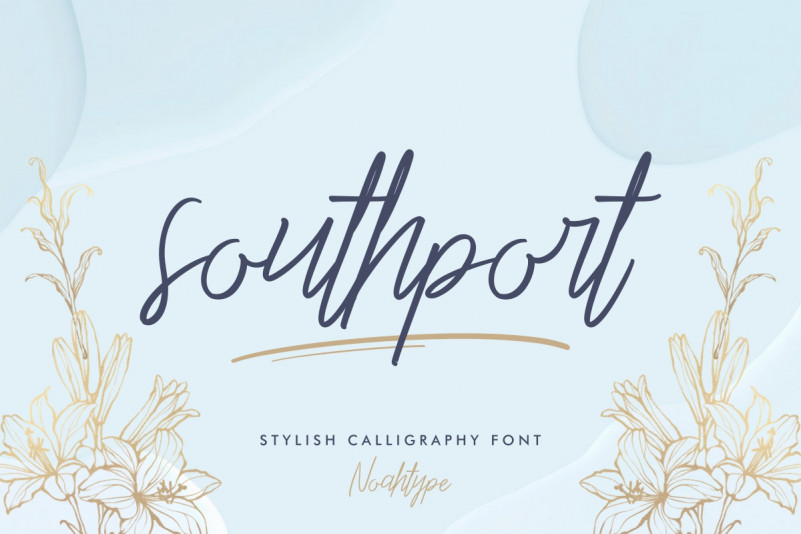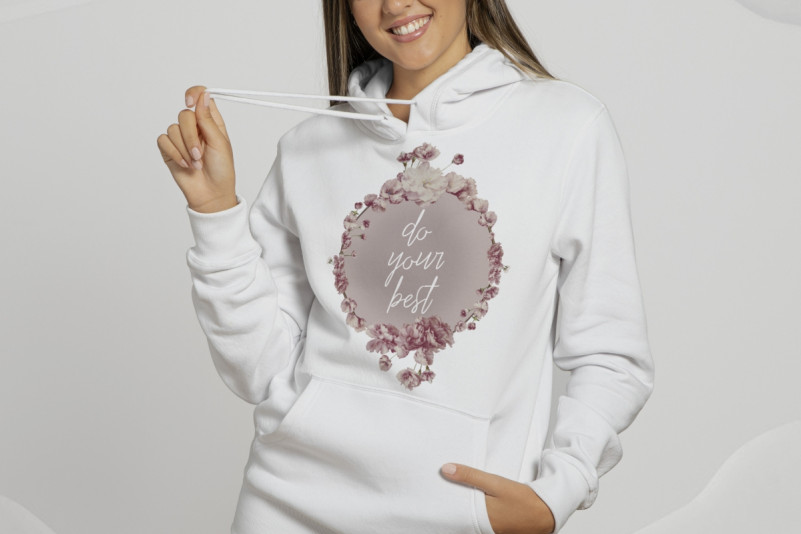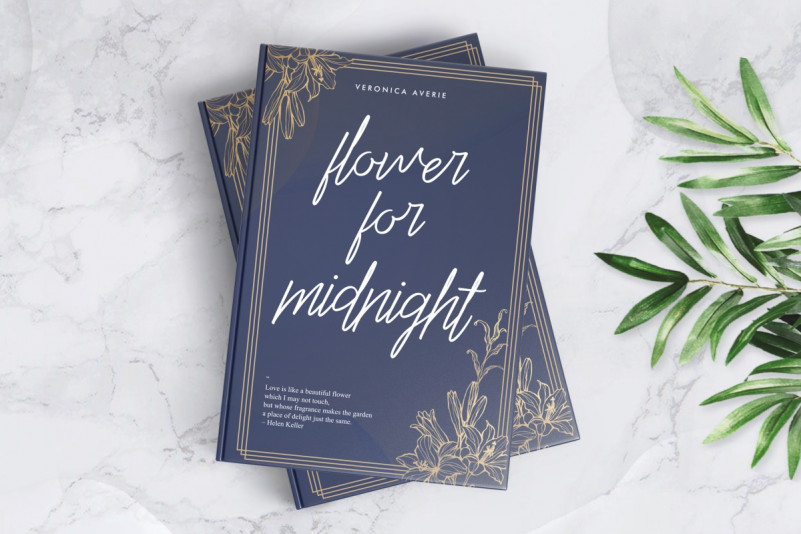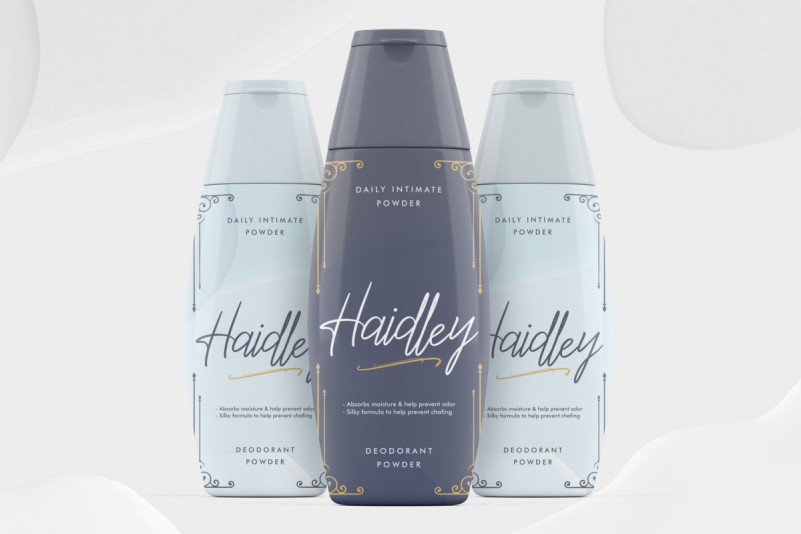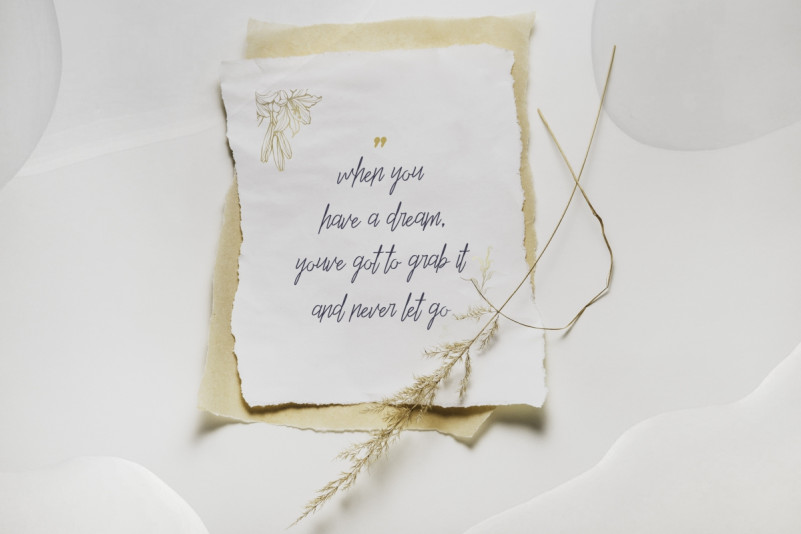
Southport Font
Southport Handwritten Font
This is a stylish signature handwriting font with elegant characters. This font is crafted carefully in every its single scratch, created to look as close to a natural handwritten script so that it can create the perfect combination on each glyph. When we make this font, we really want to create a touch that is so free-flowing that it gives a natural impression on its use later. This awesome script is for anyone who are needing of elegance and stylish for their designs.
Southport Handwritten Font includes full set of Uppercase and Lowercase Basic Characters, Numerals and Punctuation. Also it contains ligatures and alternates characters to perfectly make natural handwriting look that add more beautiful and aesthetic fonts to perfect your extraordinary project. Southport Font will be awesome for professional, photography, wedding, engagement, branding, invitations, florist, hair stylish, makeup artist, event organizer, movie, music, festival, promotions, social media etc